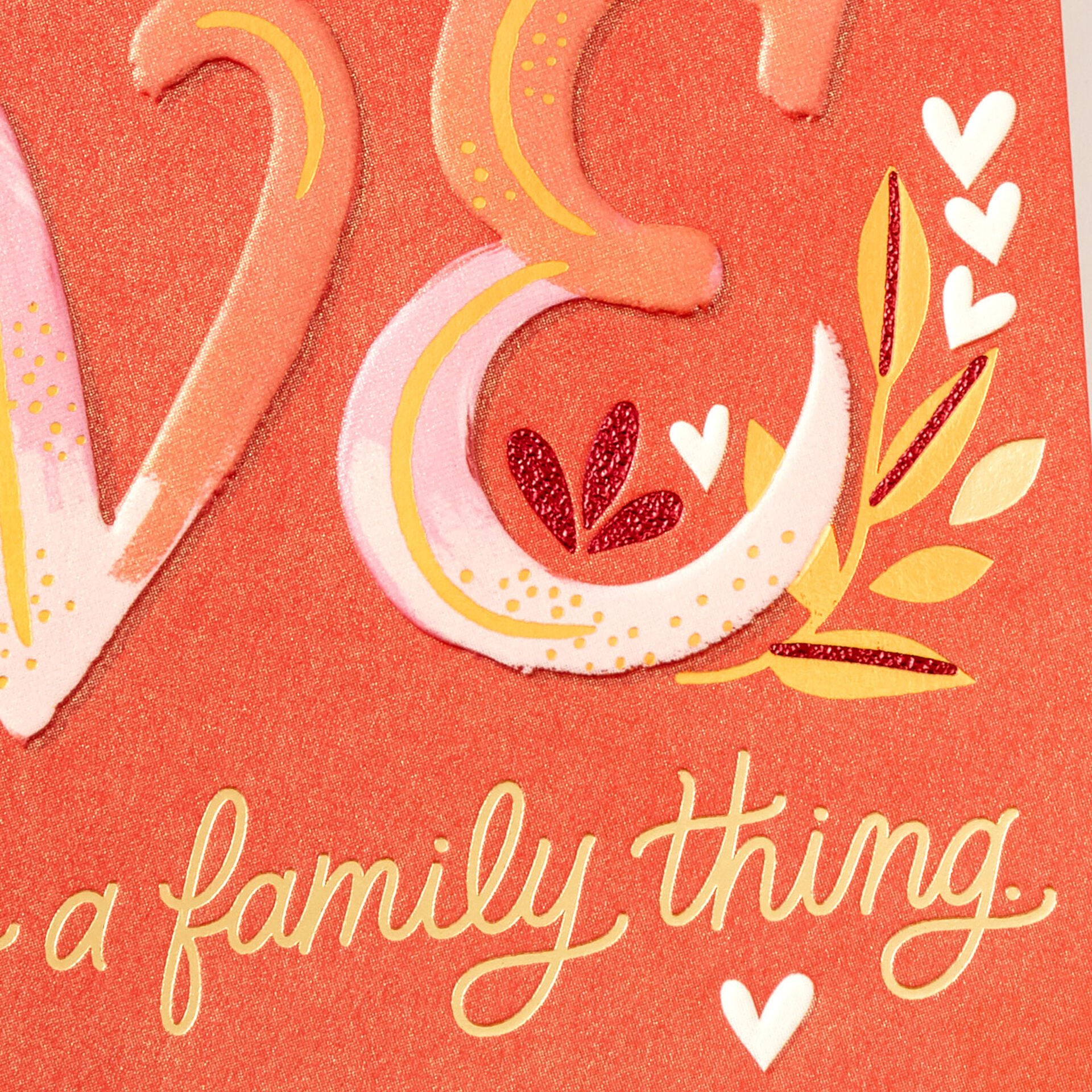
Love Lettering for Hallmark
LOVE how this illustrated lettering card turned out! The process details really help it to feel extra special. I hope many share it with their families this year!